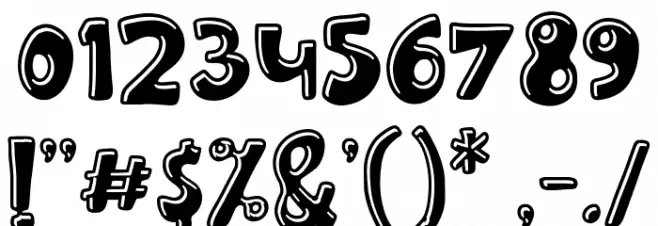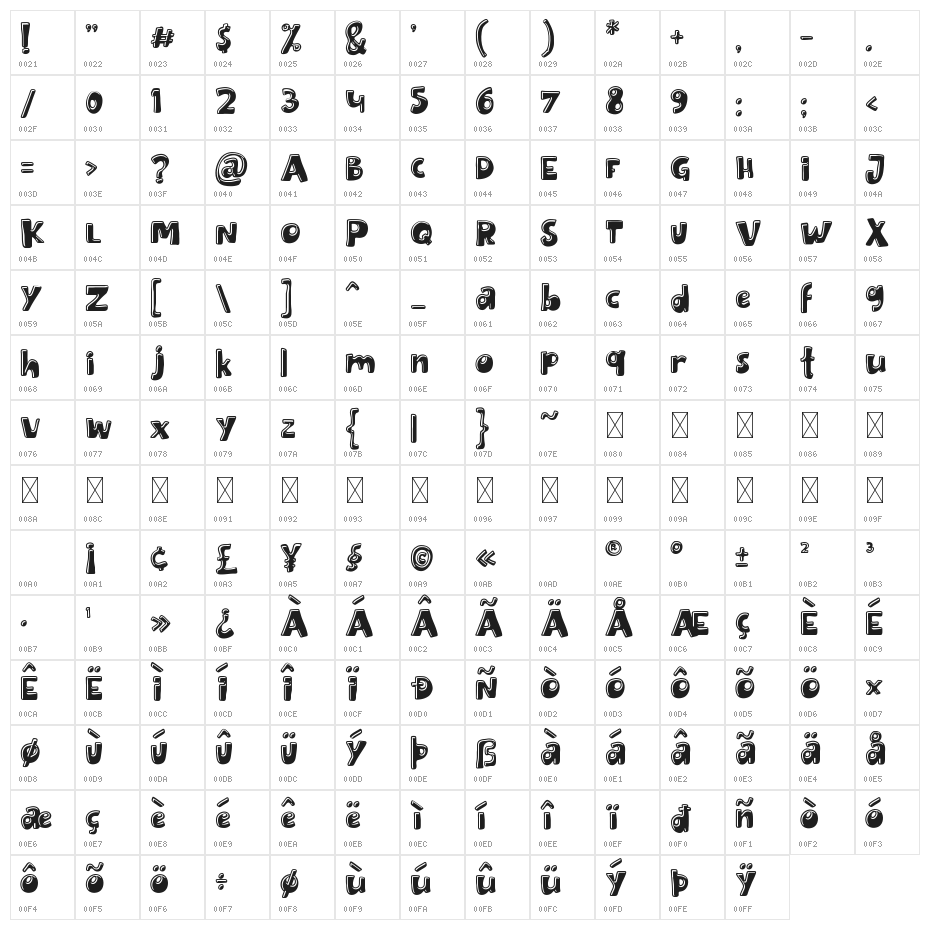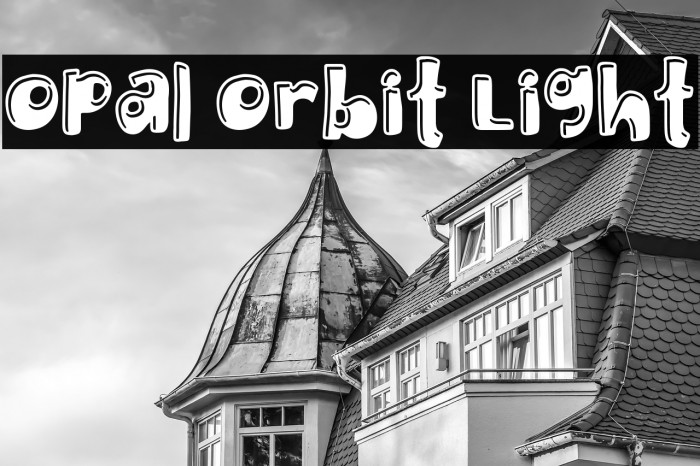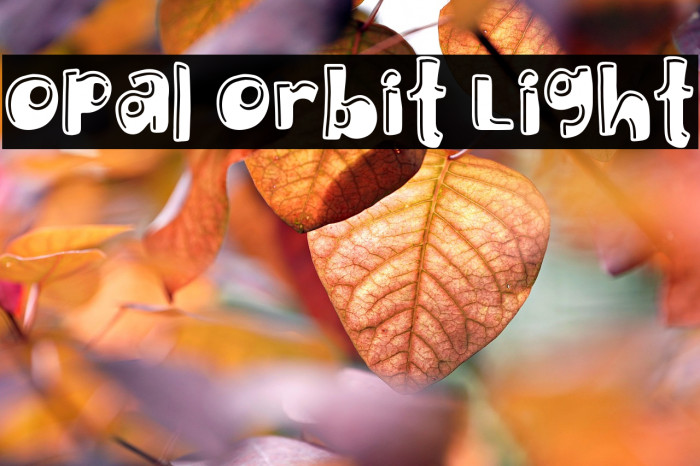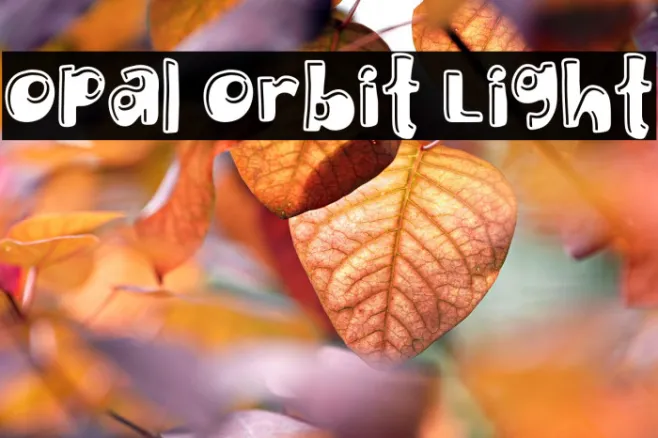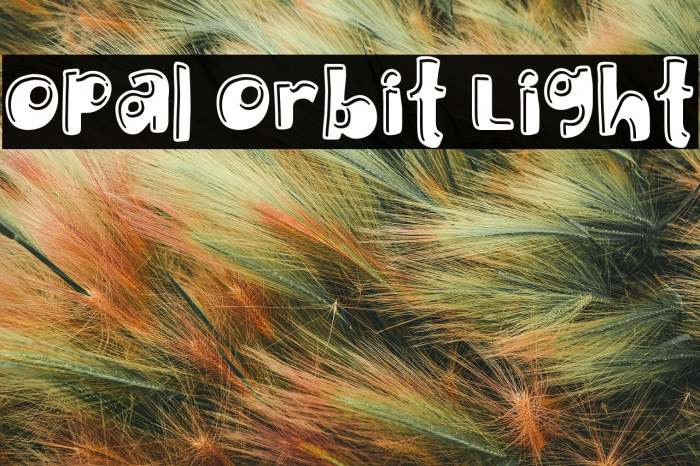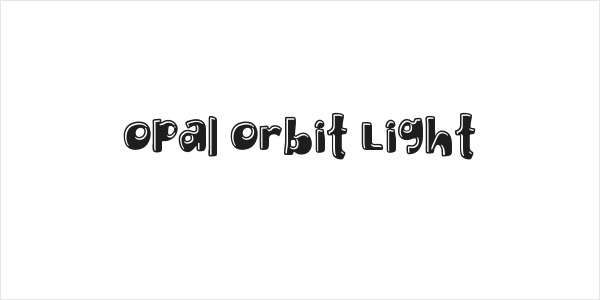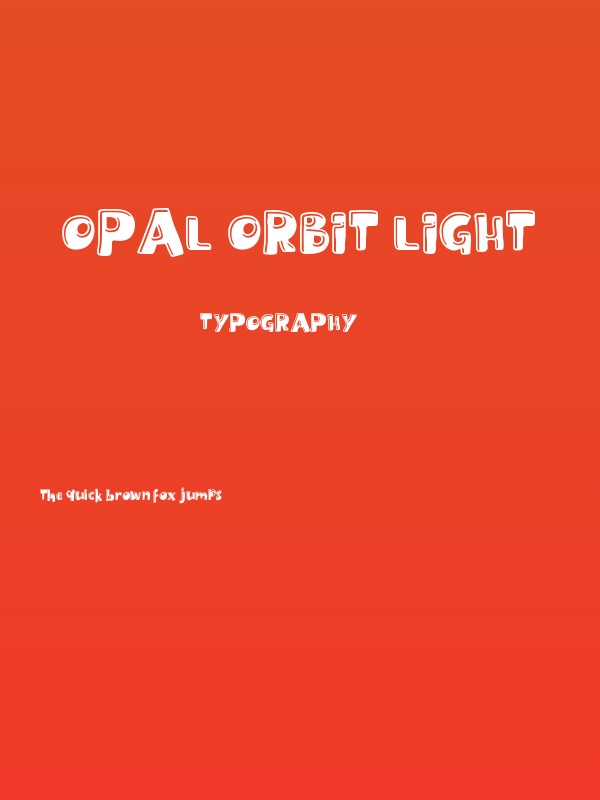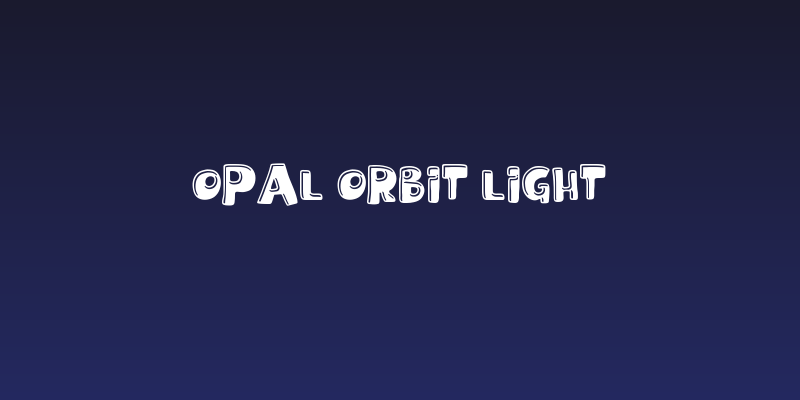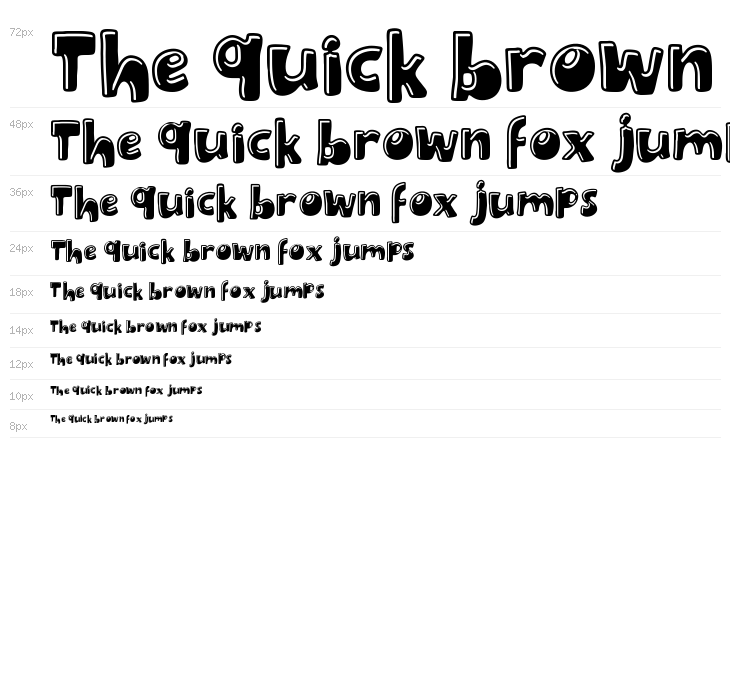
Opal Orbit Light Font
Opal Orbit Light Description
This playful and bold font features a unique, hand-drawn style with a thick, rounded appearance. Each character is outlined, giving it a distinctive, cartoonish look that stands out. The letters are slightly irregular, adding to the whimsical and informal feel. The font includes both uppercase and lowercase letters, numbers, and a variety of special characters, all maintaining the same lively and dynamic style. Its boldness and distinctive outlines make it ideal for eye-catching designs.
Overall StylePlayful, Cartoonish, Hand-drawn
Use CaseHeadlines, Posters, Branding
Proposed ProjectsIdeal for children's books, comic strips, playful branding, posters, and any project requiring a fun and engaging typeface.